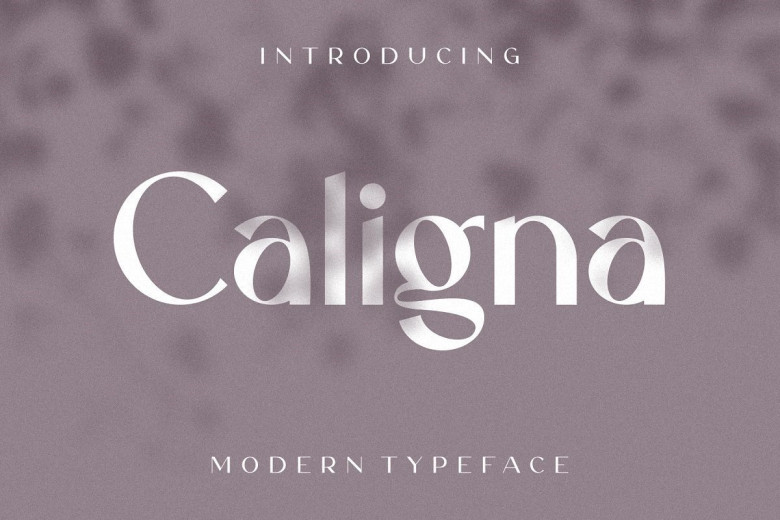
Caligna Modern Sans Serif Typeface
Caligna Sans Serif Font is a gorgeous sans typeface that is both classically elegant and inherently modern. Create beautiful wedding invitations, use it as an elegant solution for your next magazine layout, or choose Caligna for any graphics that require a sleek look with a vintage flair.
Caligna Font is based on classic letterforms for publishing and display graphics, so you can give your text a classic, elegant feel with Caligna’s clean, high-contrast lines and alternating thick and thin strokes.